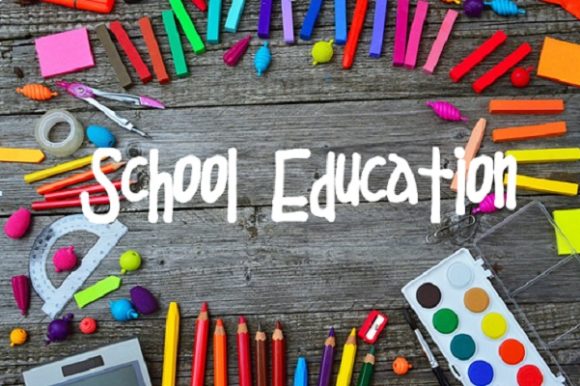
HomeScript FontsSchool Education Font Script Fonts School Education Font FacebookXPinterestWhatsApp About School Education Font School Education is a bold and fun handwritten font with an undeniably playful charm. DOWNLOAD ON CREATIVE FABRICAThis font is sold and delivered by Creative Fabrica. Font Canyon may earn a commission if you buy through this link. People also explored Cosy Morning Font Duo Nabila Delight Font Hafsha Font White Sunlight Font Processor Font Rizky Broline Font Milkshake Font Engineer Cavalry Font 401 0 TagsSchool Education Font Previous articleBushenfil FontNext articleSincerely Yours Font LEAVE A REPLY Cancel reply Comment: Please enter your comment! Name:* Please enter your name here Email:* You have entered an incorrect email address! Please enter your email address here Website: Save my name, email, and website in this browser for the next time I comment. Personal Use Free Micahel Personal Use Free Read more about this font Bolt Electric Personal Use Free Read more about this font Lion Teen Personal Use Free Read more about this font Axaxax Bold Personal Use Free Read more about this font BLOG 5 Fonts That Will Dominate Design Trends in 2026 5 Fonts for 2026 That Will Dominate Design Trends Typography plays a critical role in visual communication, and as we look ahead to 2026, it’s... How to Install and Use Fonts on Windows, macOS, and Web Projects Exploring Font Trends Where to Buy American Fonts Online in 2024